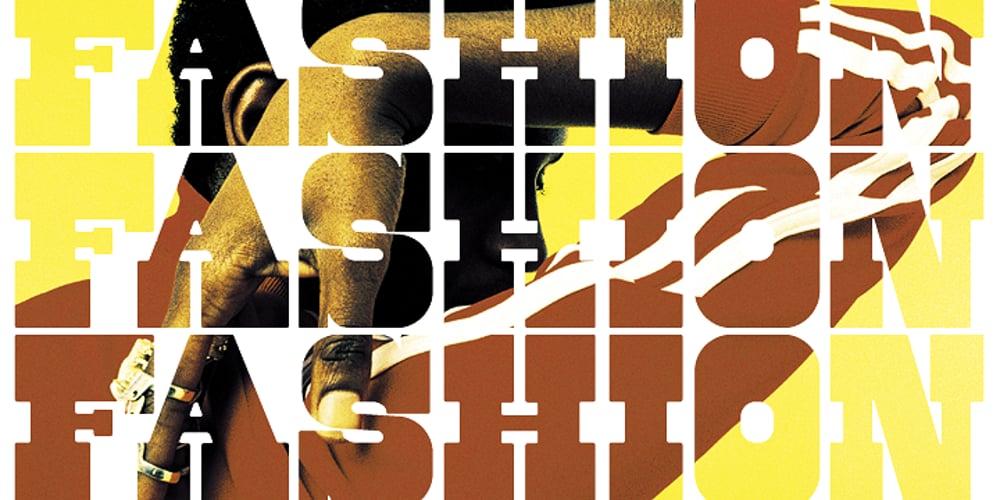
Bolster Font Family was designed by Denis Masharov and published by Denis Masharov. Bolster contains 1 styles and family package options. The font extra bold slab serif with reverse contrast, he refers to the “Italian” or “wood types”. This decorative display font is designed for use in large sizes, suitable for the lettering, the major labels, headers, logotypes. Ideal for embedding images. It’s an all-caps font, but there are biform variants of a, e, m, n and u, so you can mix things up to create more interesting headlines. This font contains the complete Latin language character set (Unicode 1252) plus support for Cyrillic (Unicode 1251), Central/Eastern Europe (Unicode 1250), Baltic (Unicode 1257) and Turkish (Unicode 1254) languages as well.